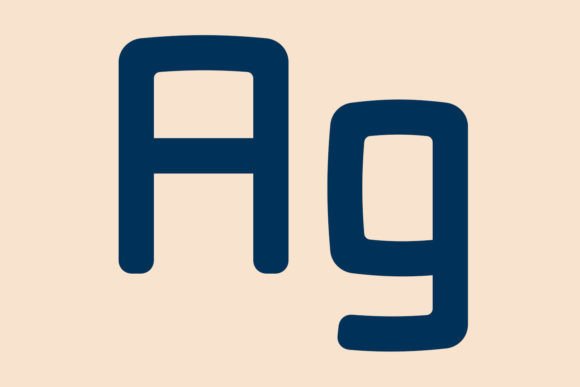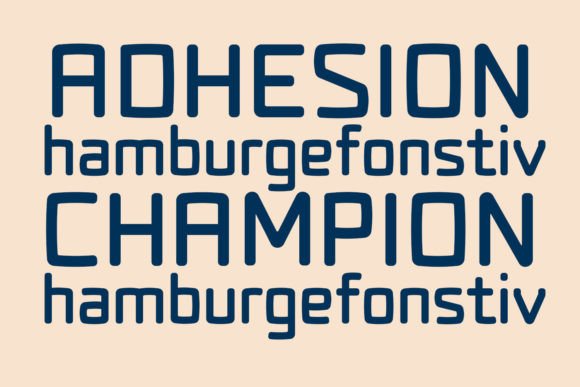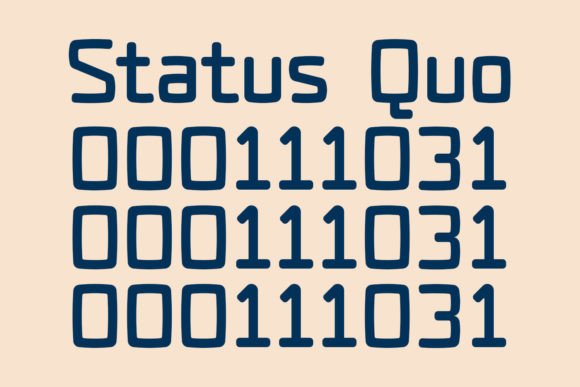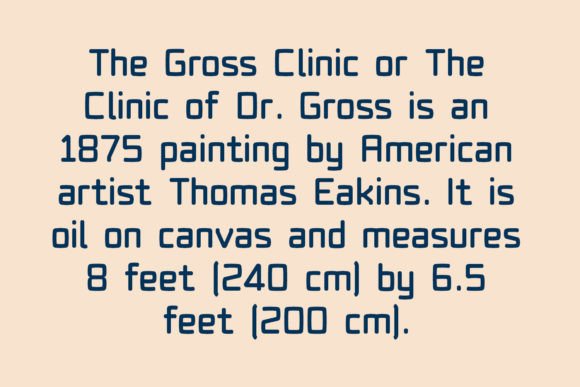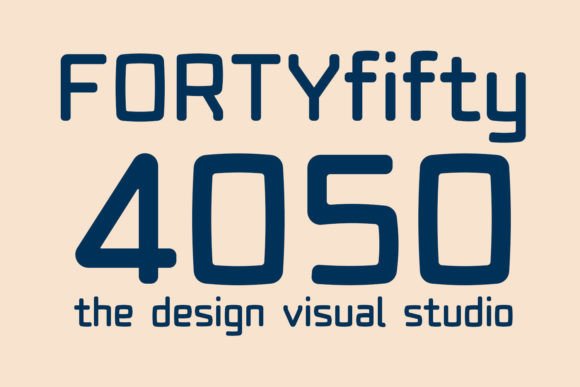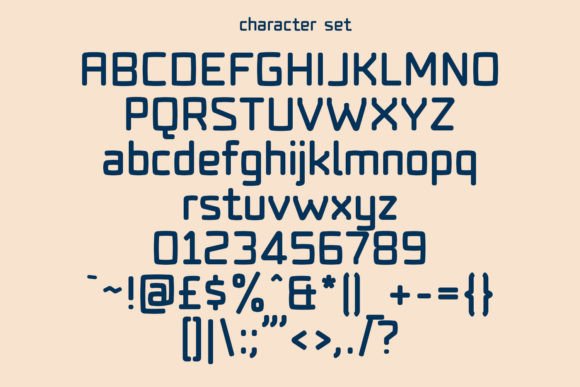
Introduction to Nathos Font
Have you ever been stuck in the middle of a creative project, searching for that perfect font to elevate your design? The frustration of scrolling through countless options, only to find that none quite capture the essence of your vision, can be overwhelming. But what if you stumbled upon a font that not only resonates with your style but also offers a world of creative possibilities?
Enter Nathos Font, a stunning sans display font that’s sure to breathe new life into your design projects. With its unique blend of a regular stroke and fun character, Nathos Font is the perfect addition to any creative endeavor. Whether you’re working on a logo design, social media campaign, or book title, Nathos Font’s versatility and high quality make it an invaluable resource for designers.
Not only is Nathos Font an excellent design resource, but it also supports over 100 languages, making it a valuable tool for designers working on multilingual projects. Plus, with its transparent background, you can easily incorporate it into your designs without any hassle. And the best part? Nathos Font is available for free download, making it an accessible and affordable addition to your design arsenal.
Key Features of Nathos Font
- High-quality font design ideal for creative projects requiring a professional touch.
- Transparent background, making it perfect for use on any background or design element.
- Each font style is available in multiple sizes, ranging from 10pt to 72pt, to cater to diverse design needs.
- Features a high-resolution design, ensuring crisp and clear typography in both digital and print formats.
- Unique characteristics, including elegant curves and sophisticated lines, make Nathos Font an exceptional choice for any creative project.
Honest Review: Nathos Font
As a designer, I’m always on the lookout for high-quality design resources to elevate my creative projects. Nathos Font is a sleek and modern sans-serif font that caught my attention, and I’m excited to share my honest review.
- Nathos Font has a clean and minimalist aesthetic that makes it perfect for a wide range of design applications.
- The font is highly legible, even at small font sizes, making it ideal for body text and titles.
- The transparent background option allows for seamless integration with various design elements and backgrounds.
Any limitations ⚠️
- Nathos Font may not be suitable for more traditional or ornate design styles, as its modern aesthetic may clash with these styles.
- The font’s versatility is limited to digital applications, as it may not print well at high resolutions.
Overall, Nathos Font is a solid addition to any designer’s toolkit. While it may have some limitations, its high-quality design and transparent background make it a valuable resource for creative projects. I’d definitely recommend it to fellow designers looking for a modern and legible font.
Nathos Font is perfect for a variety of design projects, including logos, graphics, and typography-based designs. It’s also a great choice for designers who want to add a touch of elegance and sophistication to their creative projects.
What makes the Nathos Font suitable for designs with transparent backgrounds?
The Nathos Font features a transparent background, making it perfect for designs that require a clean and minimalist look. The font’s design is carefully crafted to ensure that the transparent background blends seamlessly with any background image or color, giving your designs a professional and polished appearance.